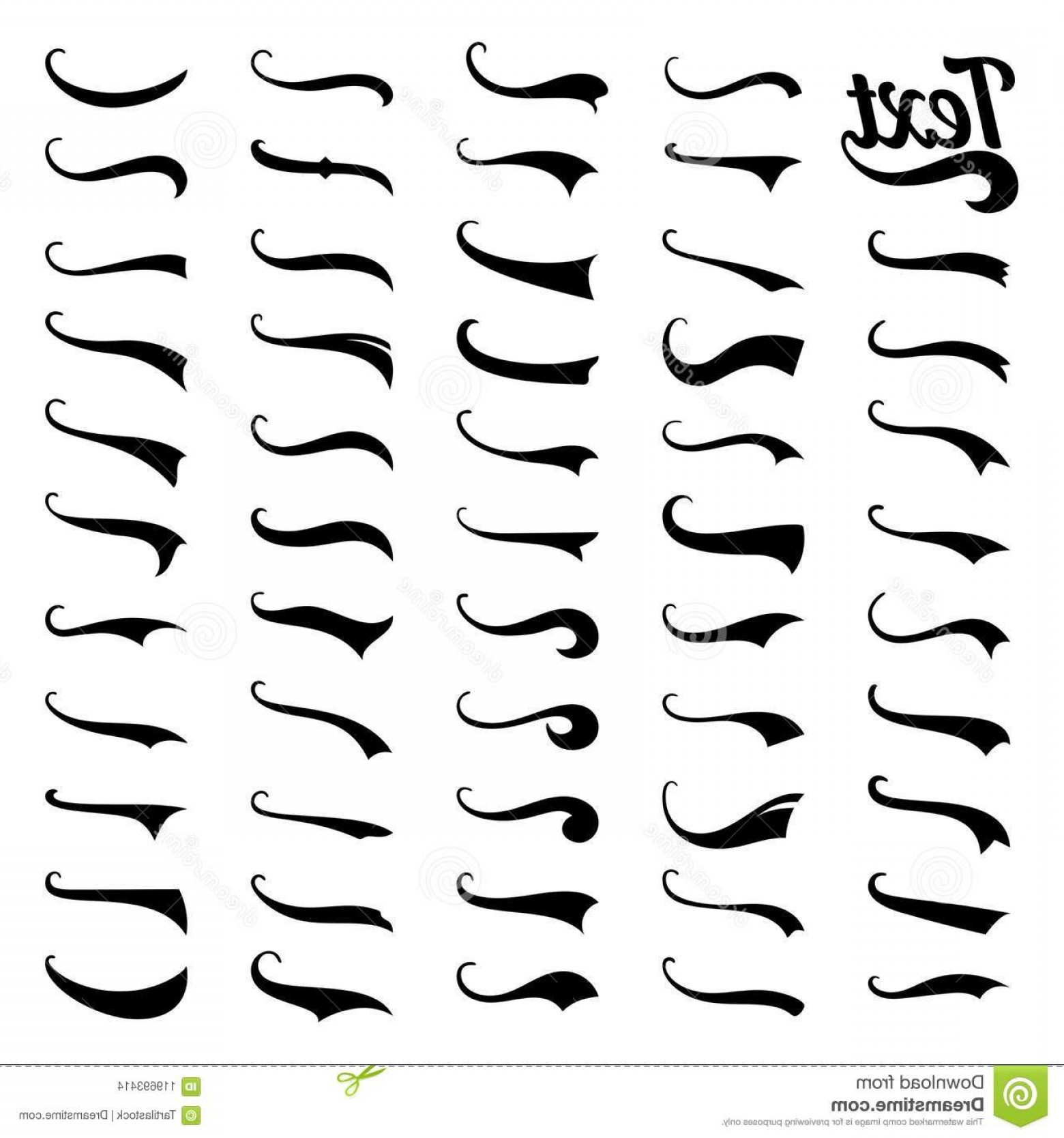
Fonts With Curly Tails - A Guide To Finding The Perfect Typeface For You
What are Fonts with Curly Tails?
Fonts with curly tails, or finials, are a type of font that has a distinctive style that is characterized by a ‘tail’ or ‘finial’ at the end of each letter. This type of font is often used to convey a sense of elegance or sophistication, as the tail of each letter gives the font a unique and beautiful look. Fonts with curly tails are often used in formal or elegant designs, such as wedding invitations or other special event invitations.
Fonts with curly tails come in a variety of styles, ranging from traditional and classic to modern and contemporary. Each style has its own unique characteristics, so you can find the perfect typeface for your project. The most popular fonts with curly tails include Garamond, Bodoni, and Courier.
Choosing the Right Font for Your Project
When choosing a font with curly tails, it’s important to consider the context in which it will be used. For example, if you’re creating an invitation for a wedding, a more traditional and classic font with curly tails may be more appropriate than a modern and contemporary font. Alternatively, if you’re creating a logo for a business, a modern font with curly tails may be more suitable.
It’s also important to consider the size of the font. If the font is too small, the tails may be difficult to read, while if it is too large, the tails can become overwhelming and take away from the design. It’s best to opt for a font size that is neither too large nor too small.
Finding the Perfect Font with Curly Tails
Finding the perfect font with curly tails for your project can be a daunting task. There are so many fonts available, it can be difficult to narrow down your search. One way to make the process easier is to look at font collections that focus on fonts with curly tails. These collections are a great way to quickly find what you’re looking for, as they have been designed specifically for this type of font.
Alternatively, you can also search for fonts with curly tails on websites such as Google Fonts or Font Squirrel. Both of these sites have large collections of fonts, so you should be able to find the perfect font for your project.
Using Fonts with Curly Tails
Once you’ve found the perfect font with curly tails, you can then start using it in your project. When using fonts with curly tails, it’s important to use them appropriately. For example, if you’re creating a logo for a business, it’s best to use a font with curly tails that is still legible at a small size. Similarly, if you’re creating a poster or flyer, you should opt for a larger font with curly tails that stands out.
Fonts with curly tails can be a great way to add a unique and elegant look to your project. When choosing a font with curly tails, it’s important to consider the context in which it will be used, as well as the size of the font. Once you’ve found the perfect font with curly tails, you can then start using it in your project to create a unique and eye-catching design.